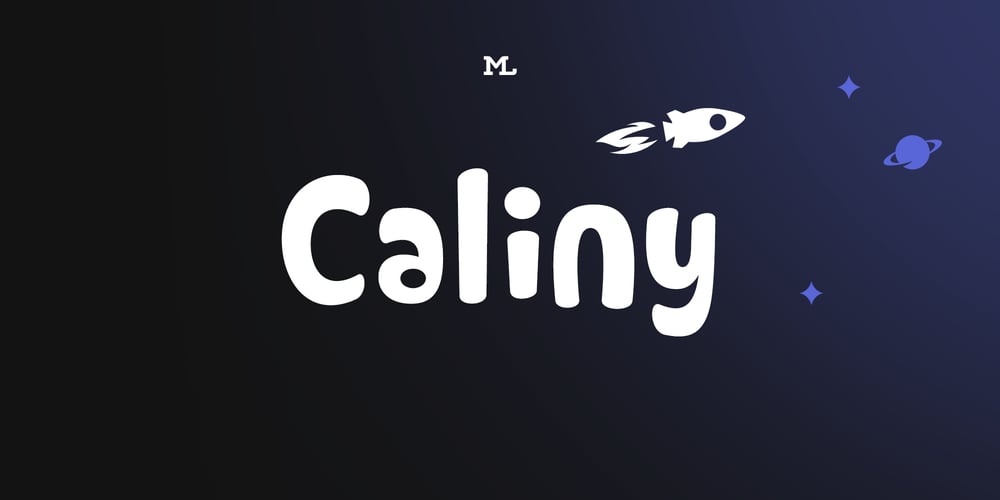
Caliny Font Family was designed by Marc Lohner and published by Marc Lohner. Caliny contains 4 styles and family package options. This cheerful font family combines cuteness and fun, making it a great choice for any kid’s app, book, toy, packaging, movie, theme park and so much more. Caliny’s curves are drawn with care and love. It covers more than 200 languages and has some advanced typographic features, like case sensitive forms to offer.